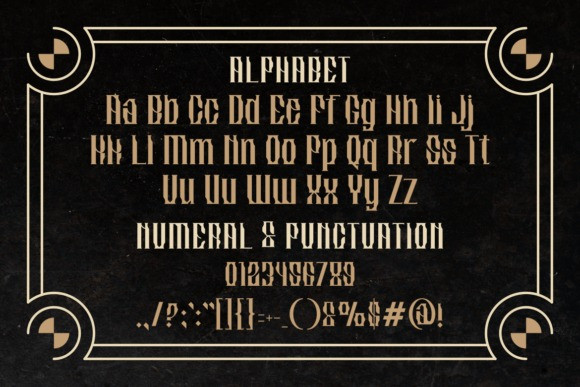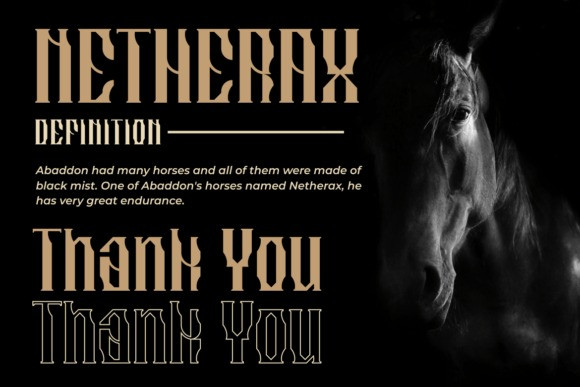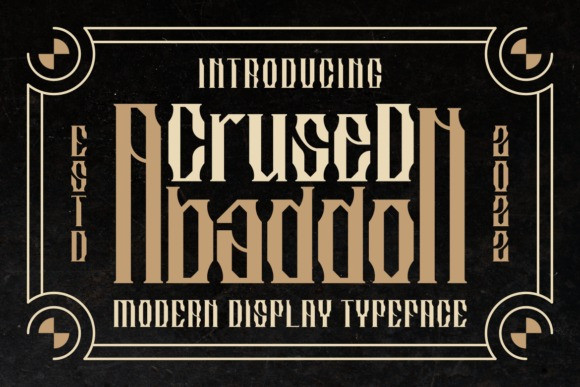
Crused Abaddon Font
Crused Abaddon Font is a cool, uniquely-shaped display font. Masterfully designed to become a true favorite, this font has the potential to bring each of your creative ideas to the highest level!